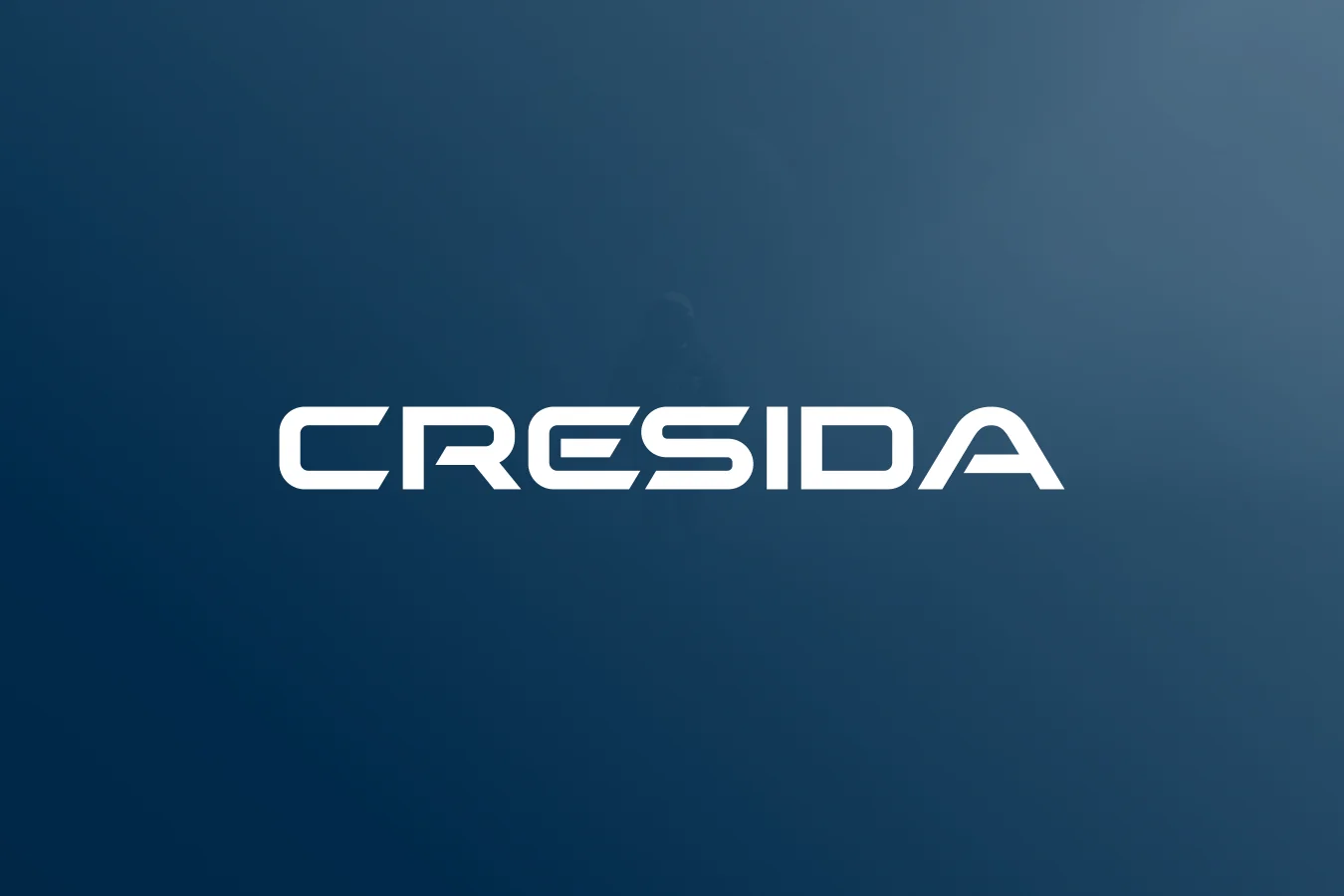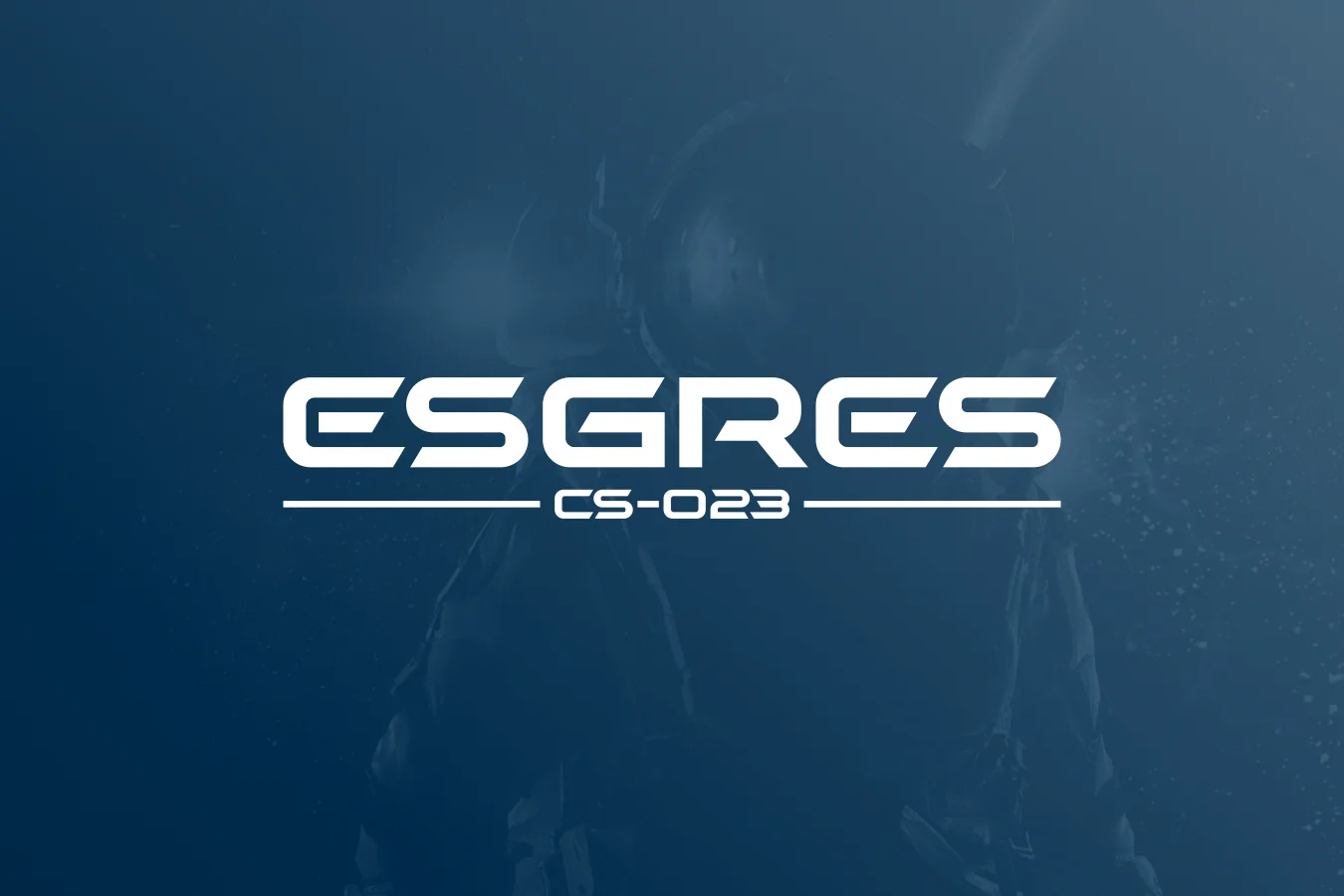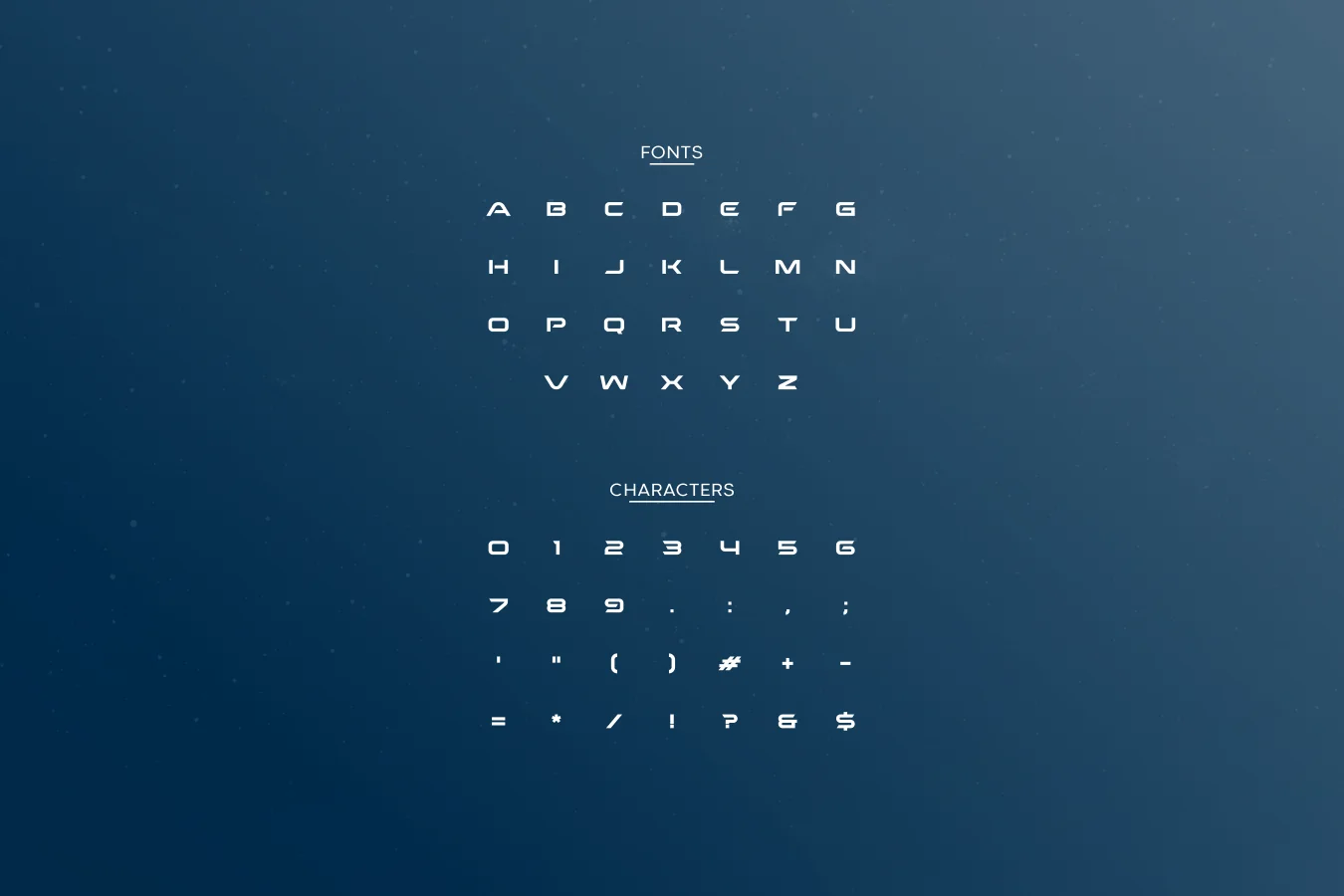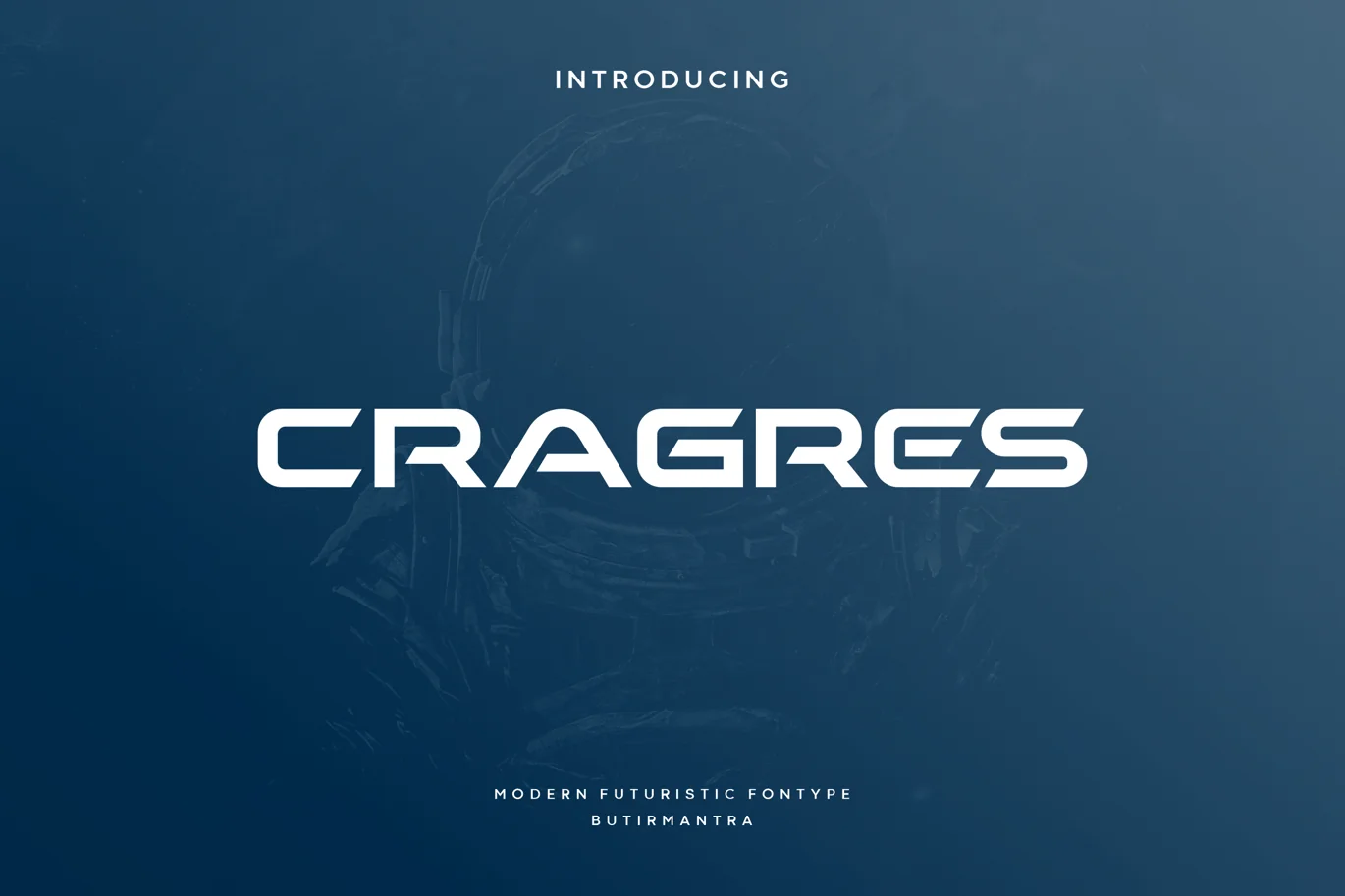
Cragres – Futuristic Font
Cragres is a futuristic font, a font inspired by the visual of technology that can apply to logo, sci-fi movies and the present gadgets. Designed with minimalist style and unique letterforms, a perfect choice to use on logos, labels, posters, packaging, books, movies, presentations, games, and much more. Cragres complete with some elegant touch that give your design looks more futuristic and dynamic.